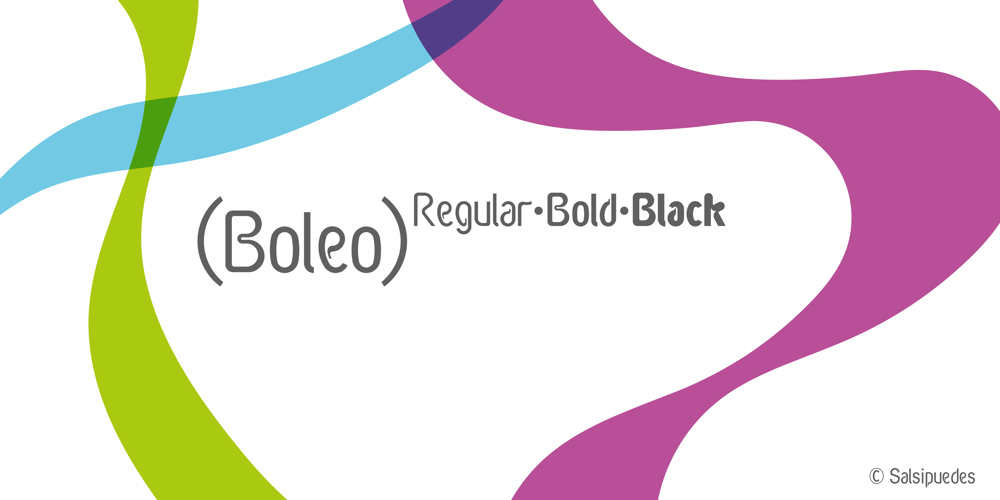
Boleo
Boleo font
Boleo Font Family was designed by Alberto Martínez and published by Salsipuedes. Boleo contains 3 styles and family package options. Boleo is a typeface designed to work in short texts such as headlines, banners, logos, signs, packaging and posters. It is a display font but has a good legibility thanks to well-proportioned shapes which let it works fine both on paper and screen. Boleo’s shapes remind to ribbons in motion, so that its lines, all curved, can be traced all at once. Boleo displays in three weights: regular, bold and black.